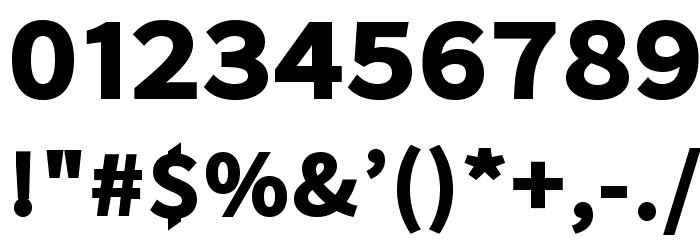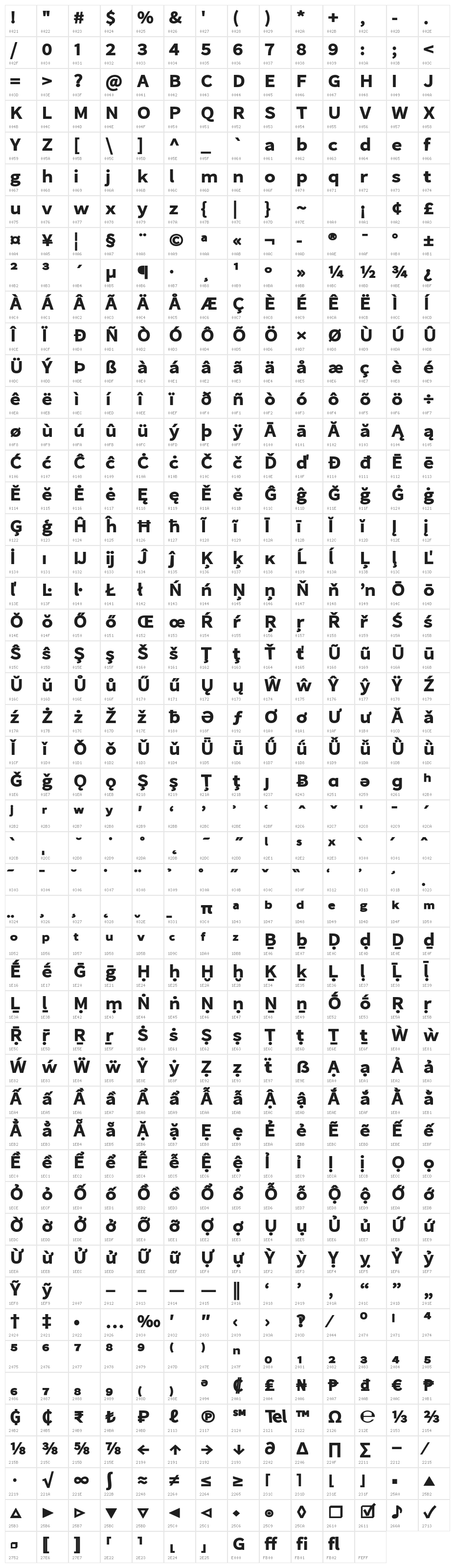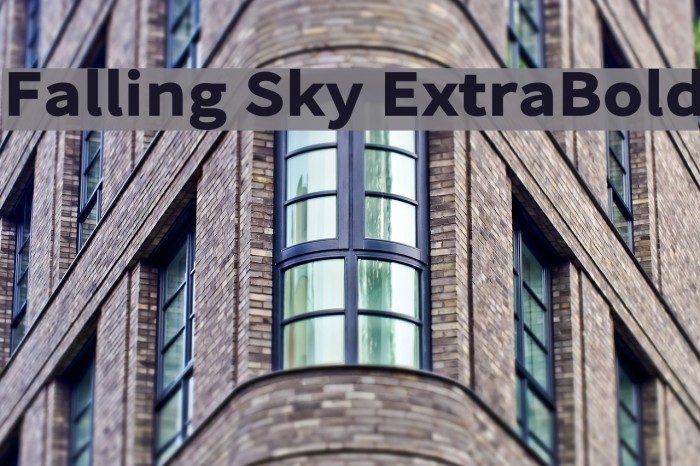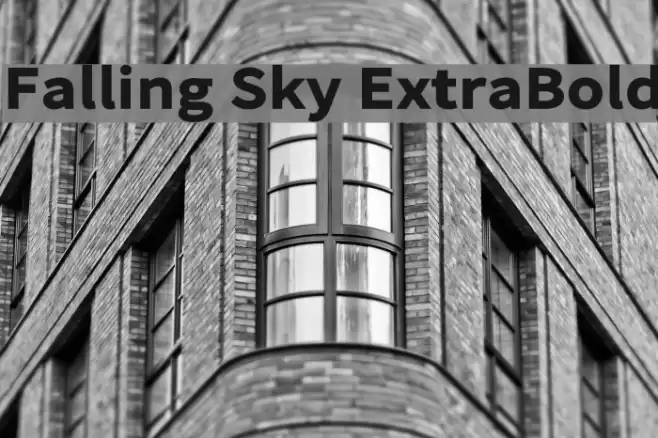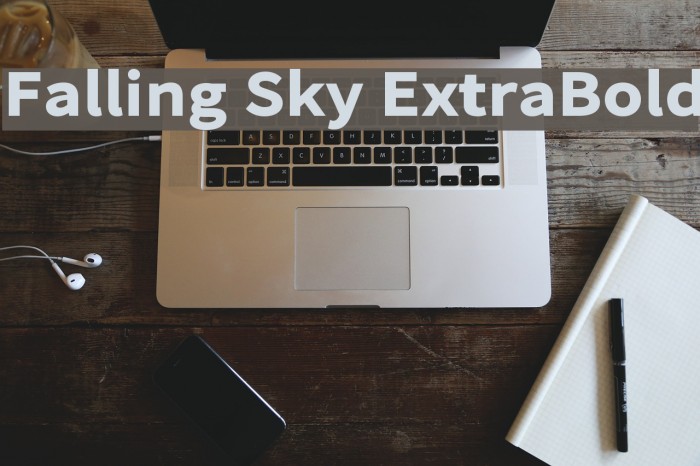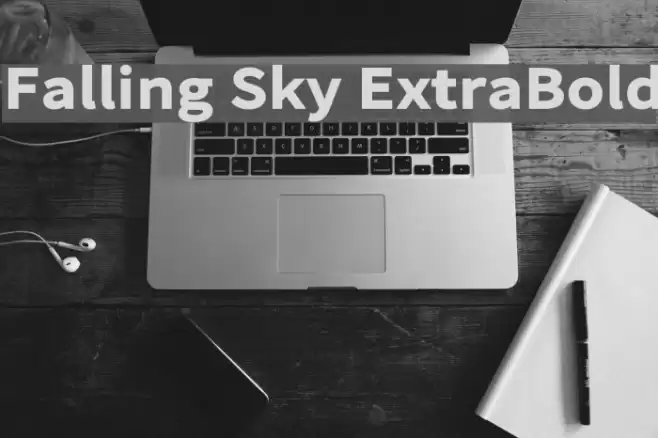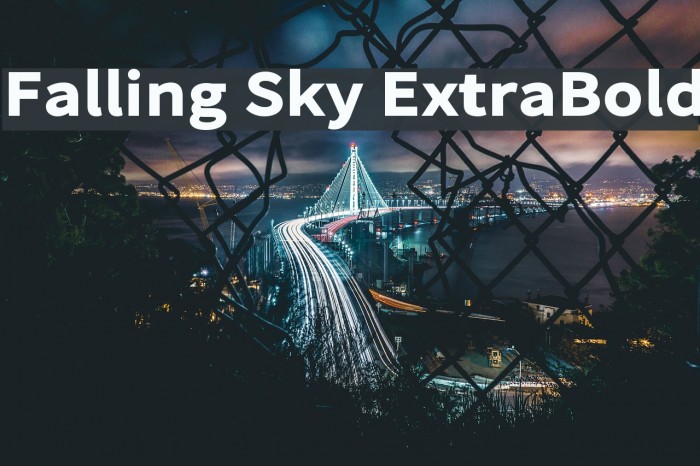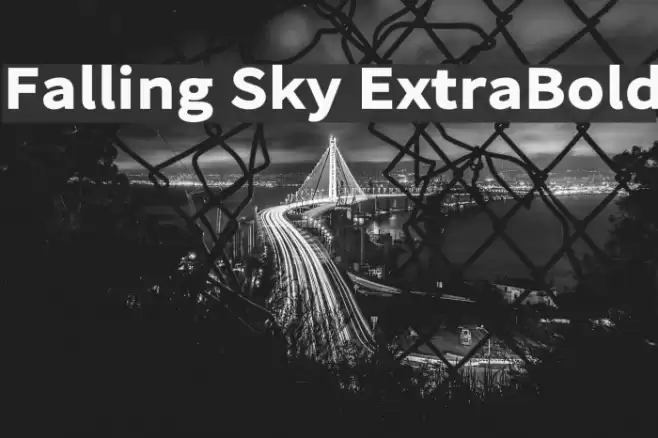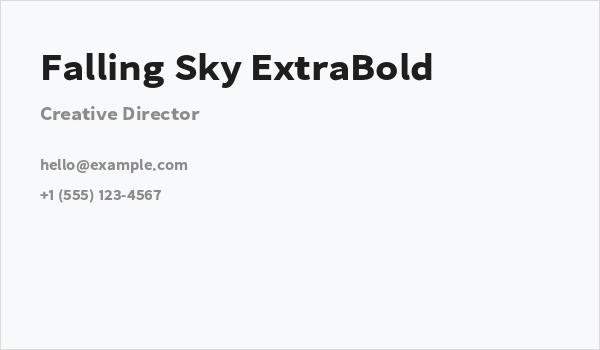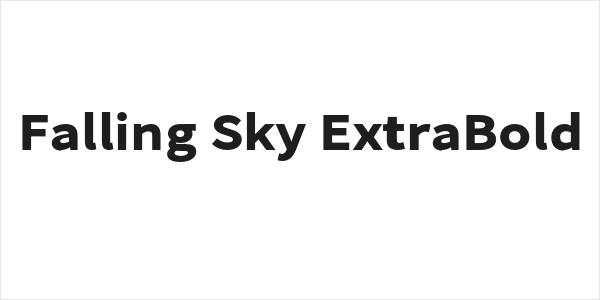
Falling Sky ExtraBold Font
Falling Sky ExtraBold Description
This typeface is characterized by its bold and assertive appearance, featuring thick strokes and a strong presence. The letters are well-defined with a modern sans-serif style, offering a clean and contemporary look. The uppercase and lowercase letters maintain a consistent weight, providing uniformity across the typeface. The numerals are equally bold, ensuring visibility and emphasis. Special characters are included, matching the overall robust design. This font is suitable for making impactful statements and grabbing attention.
| Proposed Projects | Ideal for headlines, posters, branding materials, and any project requiring a strong visual impact. |